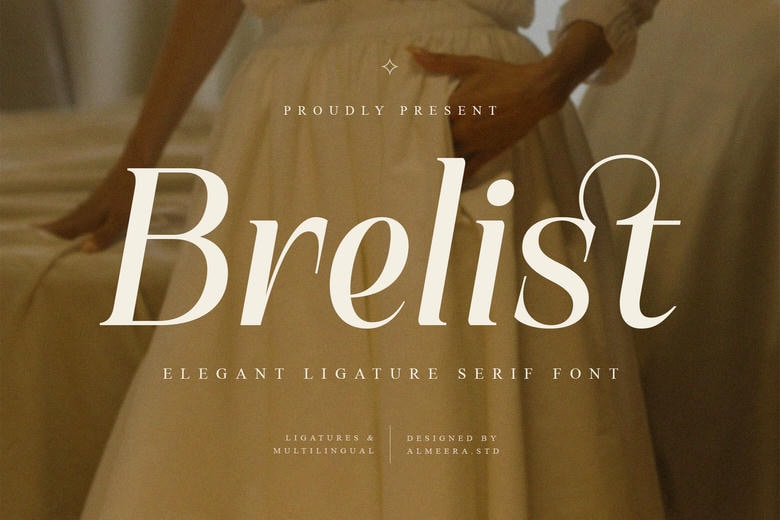
Brelist Font
Brelist is an elegant serif font with graceful curves, refined proportions, and unique ligature details. Its modern look and timeless charm add a touch of luxury and expression to any design.
Brelist features carefully designed ligatures and supports multiple languages, making it both versatile and full of character. Its balanced shapes and gentle contrast give it an elegant, modern, and stylish feel.
Brelist works well for branding, logos, editorial layouts, packaging, website headers, invitations, social media graphics, magazines, and high-end print materials.
Brelist Serif Font